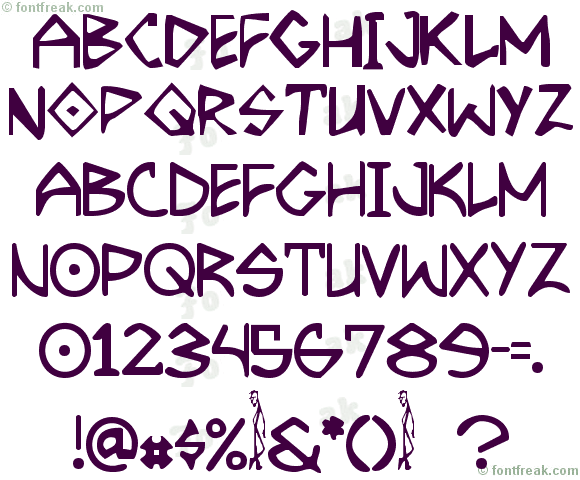
Grrrrrr Regular
Grrrrrr Bold
About Grrrrrr
Introducing the Grrrrrr font by Stickfonts, a playful and distinctive display typeface that stands out in the realm of typography. This freeware font, created by Mike Hind in 1998, features a bold, expressive style that is perfect for capturing attention. As a decorative typeface, Grrrrrr boasts thick stroke weights with sharp, angular forms, giving it a dynamic and energetic appearance. The spacing is tight, creating a sense of cohesion while enhancing readability in larger formats.
The Grrrrrr font excels in a variety of creative applications. It is particularly well-suited for vibrant movie posters, where its bold character can convey excitement and intrigue. Additionally, this font can add a fun twist to restaurant menus, attracting diners with its whimsical flair. It also works wonderfully for children’s party invitations, where the playful design can set the tone for a joyful celebration. Graphic designers will find Grrrrrr to be an excellent choice for branding projects, especially those targeting a youthful audience or a niche market.
Targeting a diverse audience, including graphic designers, small business owners, and content creators, Grrrrrr offers a unique opportunity to elevate visual content. Its distinct personality makes it an ideal choice for anyone looking to make a memorable impression.
What sets the Grrrrrr font apart is its ability to blend fun with functionality. Its bold, eye-catching design ensures that your message won’t just be read—it will be remembered. The Grrrrrr font free download allows users to integrate this unique typeface into their projects at no cost, making it an accessible option for creative endeavors. Embrace the energetic spirit of Grrrrrr and let your designs roar with personality.